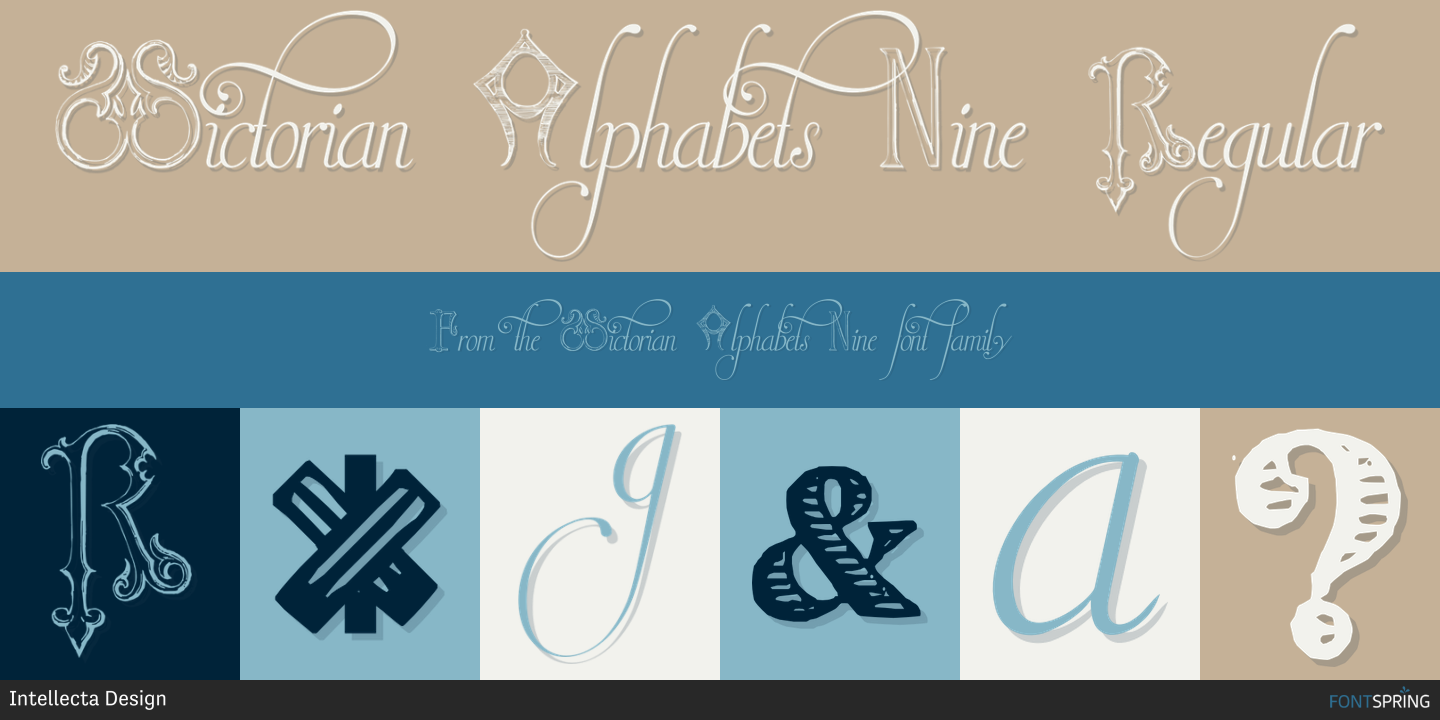
Victorian Alphabets Nine
Designed by Paulo W, Victorian Alphabets Nine is a display and monograms font family published by Intellecta Design.
Victorian Alphabets is a increasing family of complete victorian style alphabets, researched and developed upon a comprehensive number of vintage books, magazines and catalogues from XIX century. A partnership font between Intellecta Design and Monocracy Types (Paulo W). Also, you can take a look, too, in our massive collection of victorian monograms, here : https://www.fontspring.com/fonts/intellecta-design/intellecta-monograms